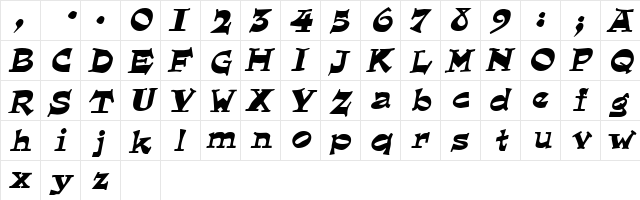
Lounger Oblique
Design Context for Lounger Typeface
Lounger is a composed and adaptable typeface that performs quietly and consistently across a wide range of design contexts. Its italic angle brings a sense of urgency and motion to the letterforms.
Pro Tip: Try Lounger for annotation and caption copy alongside an upright companion — the contrast in angle creates a dynamic but ordered typographic system.